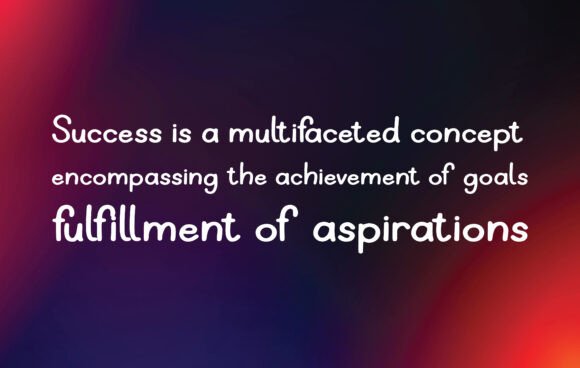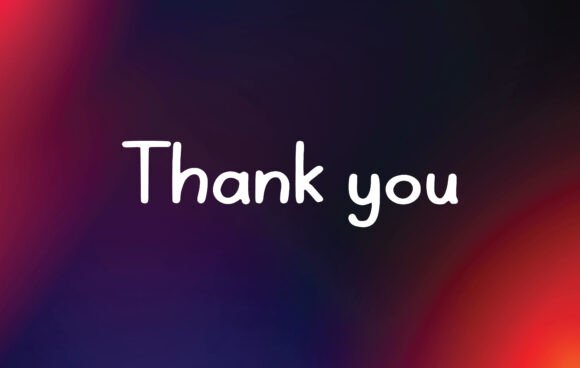
The Perfect Canvas for Your Creativity
Have you ever sat down with a blank piece of paper, a blank screen, and a surge of inspiration? You know, that moment when everything clicks and your creative ideas start flowing like a river. It’s a feeling that’s hard to replicate, but with the right tools, you can tap into it time and time again. For designers, the right font can be the difference between a good design and a great one.
Enter the Camden Font, a beautiful handwritten font that’s designed to take your creative ideas to the next level. With its elegant script and charming personality, the Camden Font is perfect for creating eye-catching logos, branding, and quotes that truly stand out. Whether you’re a seasoned designer or just starting out, this font is a valuable addition to your toolkit.
Camden Font Key Features
- Font Family: Camden Font is a sans-serif typeface designed specifically for digital use.
- Unique Characteristics: Camden Font features a clean and modern design, with subtle rounded edges and a highly legible x-height.
Camden Font Review
Overall, I think Camden is a solid, workhorse font. It’s not going to win any awards for innovation, but it gets the job done. ✨ One of the things that works well is its readability – it’s clear and easy to read, even at small sizes.
Another strength of Camden is its versatility. It comes in a wide range of weights and styles, from light to bold, and even some fun alternates. ✨ This makes it a great choice for projects where you need a lot of customization options.
What Doesn’t Work
- ⚠️ While Camden is readable, it’s not particularly stylish. It’s a bit bland and lacks character.
- ⚠️ The font family is also quite large, which can make it harder to manage and navigate in your design software.
- ⚠️ Some of the weights and styles feel a bit inconsistent, which can make it harder to achieve a cohesive look.
Overall, Camden is a reliable choice for any project where readability and versatility are top priorities. It may not be the most exciting font, but it gets the job done. I’d definitely recommend it for body text or captions, but you may want to consider something more stylish for headings or titles.
Camden Font is a versatile font that can be used in a variety of applications, including:
Alternatives to Camden Font for Designers
The Camden Font is a popular sans-serif font known for its clean and modern design. However, designers may need alternatives for specific projects or to achieve a different aesthetic. Here are a few options:
Open Sans is a highly legible and versatile font that works well for digital interfaces and print materials. It has a similar feel to Camden Font but with a slightly more rounded and friendly appearance. Use Open Sans for projects that require a clean and approachable design.
Comparison: Open Sans has a more rounded and friendly appearance compared to Camden Font’s sharp and modern look.
Montserrat is a geometric sans-serif font that originated in Buenos Aires. It has a strong and urban feel, making it ideal for projects that require a bold and edgy aesthetic. Use Montserrat for projects that need a modern and metropolitan look.
Comparison: Montserrat has a more geometric and bold appearance compared to Camden Font’s clean and modern look.